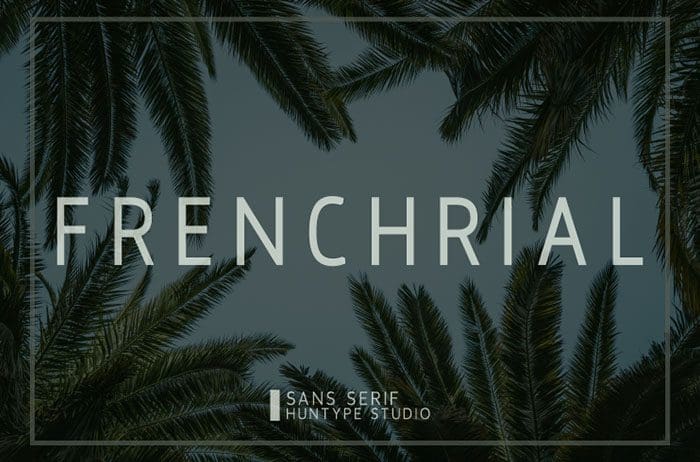
Frenchrial Sans Serif Font
Frenchrial is a fancy, contemporary sans serif font. It will complement any design need perfectly with its perfectly balanced mix of smooth and sharp! Thanks to Mas Anis for sharing this font! Take a look at this portfolio for more of his stunning fonts.